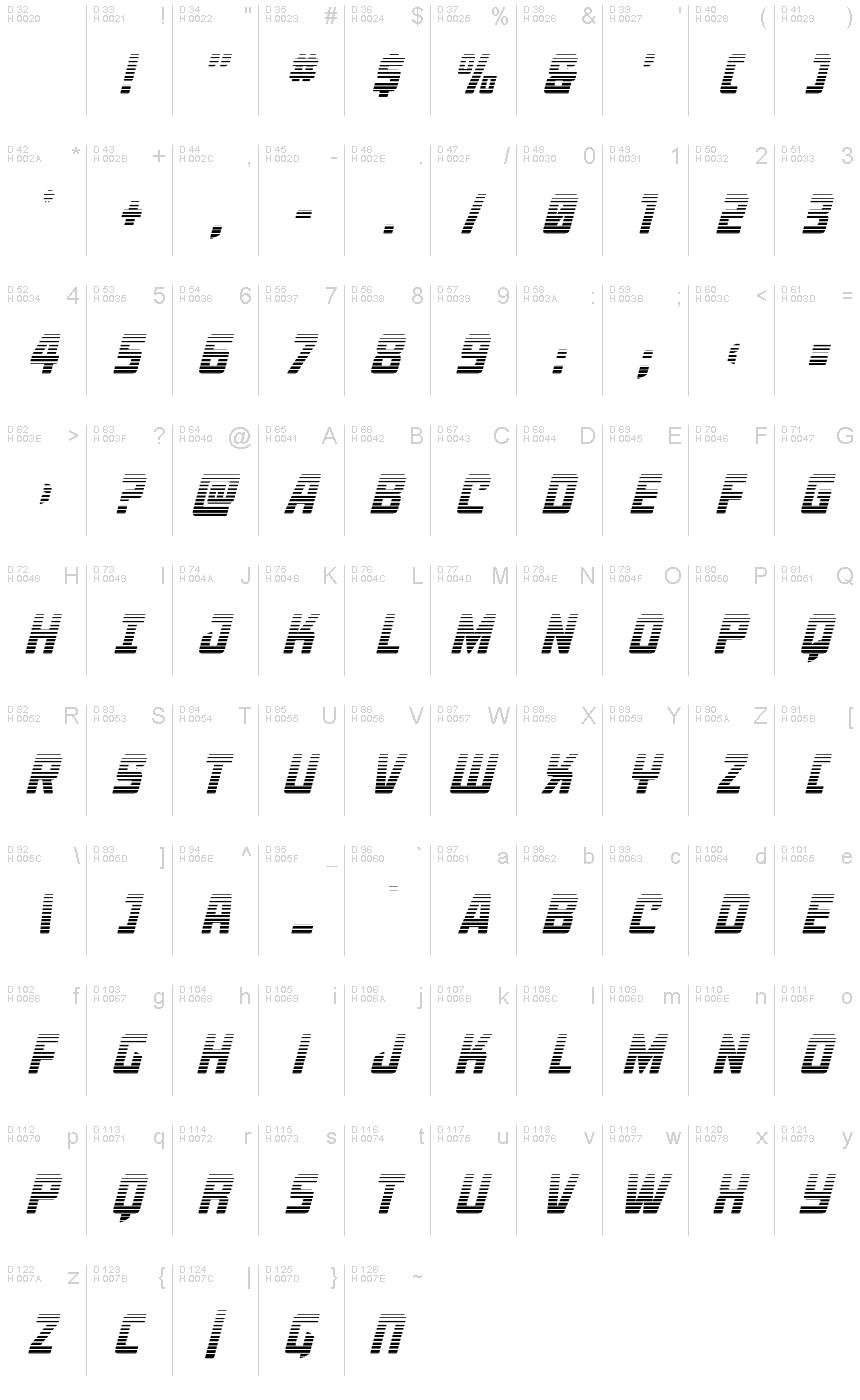
Quicky Nick Gradient
Quicky Nick Gradient, a dynamic display font by Iconian Fonts, captivates with its bold, technical flair. This cutting-edge design features sharp, angular letterforms that exude a sense of modern sophistication. The gradient effect introduces a striking visual contrast, adding depth and dimension to the typography. Quicky Nick Gradient's futuristic aesthetic evokes a sense of technological prowess, making it a compelling choice for headers, logos, and design projects seeking a bold, attention-grabbing impact.
Quicky Nick Gradient's versatility extends across a range of applications, from vibrant branding and packaging to dynamic event promotion and digital interfaces. Its distinct techno-inspired style lends itself well to projects that require a strong, contemporary aesthetic, such as gaming, music, and tech-focused industries. This font's unique characteristics make it a versatile tool for designers seeking to craft impactful, visually striking compositions.